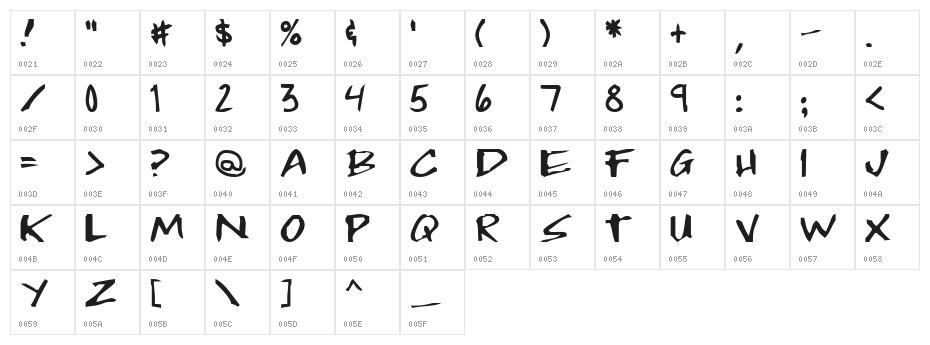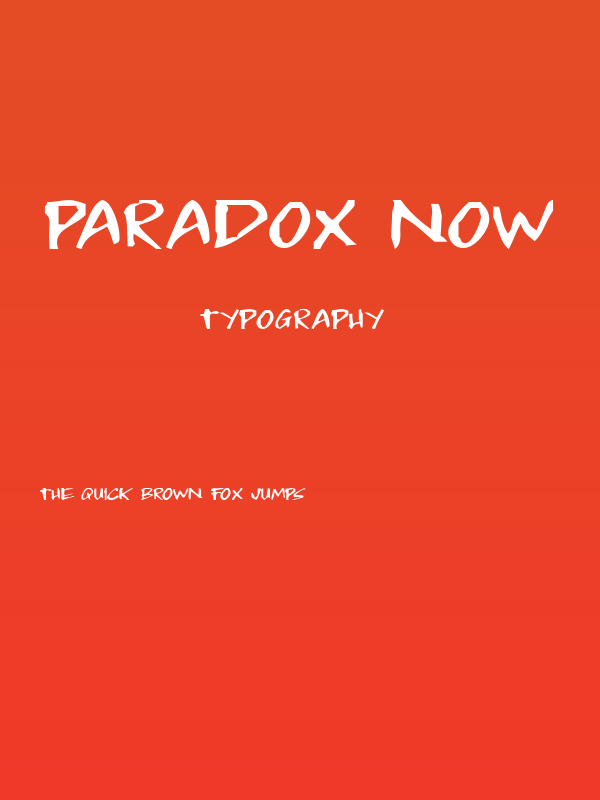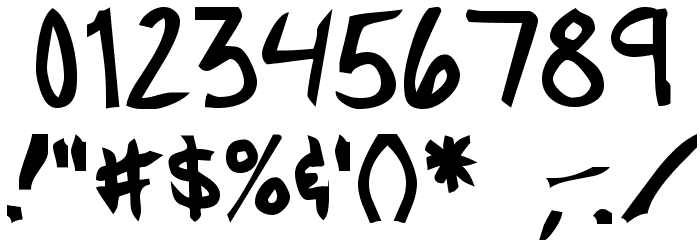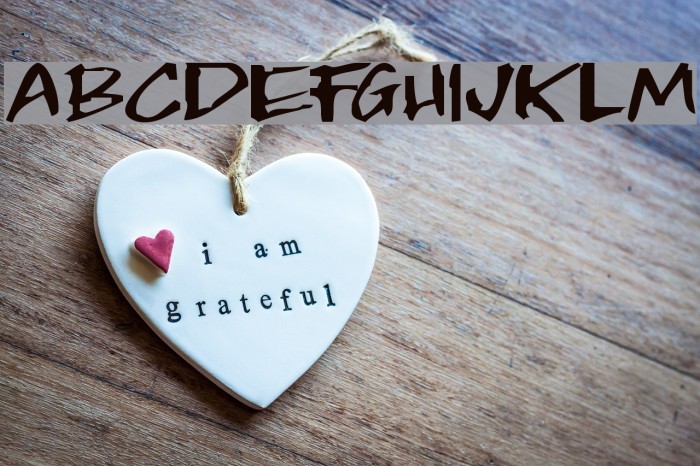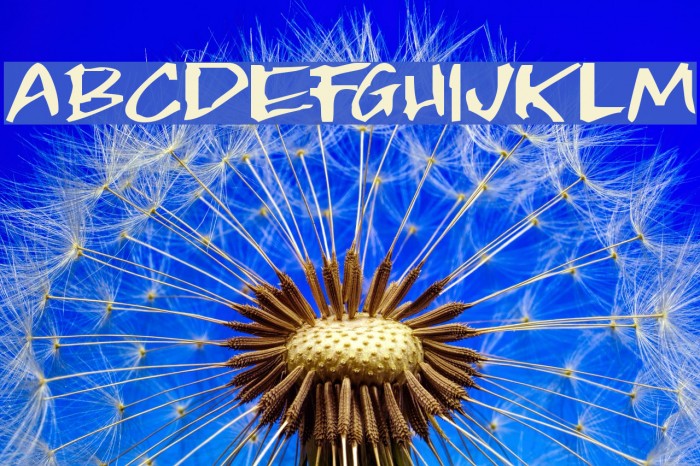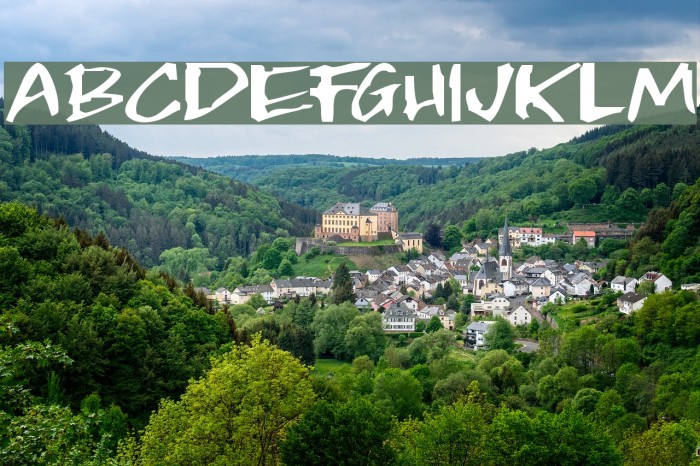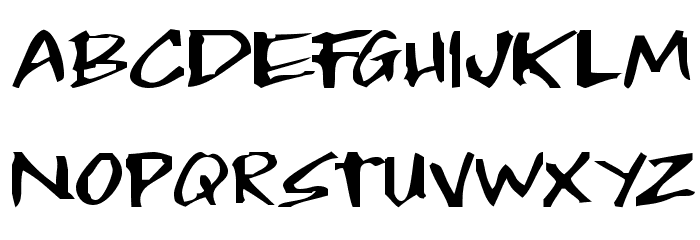
Paradox Now Font
Paradox Now Description
This font features a bold and dynamic style with a hand-drawn appearance, characterized by sharp angles and irregular strokes. The uppercase and lowercase letters maintain a consistent energy, with each character exhibiting unique flair and personality. The numbers and special characters follow the same aesthetic, ensuring a cohesive look across all text elements. The font's edgy and artistic design makes it stand out, ideal for projects that require a strong visual impact. Its distinctive style is both modern and expressive, perfect for capturing attention.
| Overall Style | Modern, Artistic |
| Proposed Projects | Ideal for posters, album covers, graffiti art, and branding that requires a bold statement. |